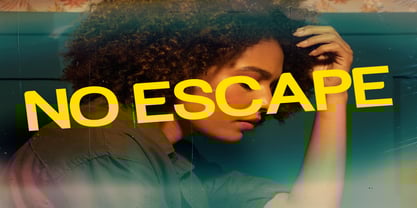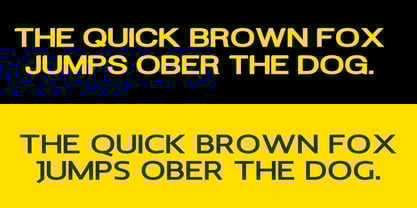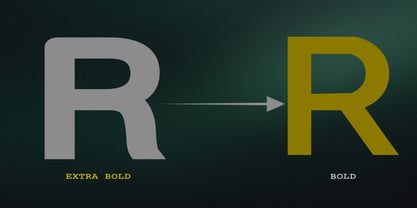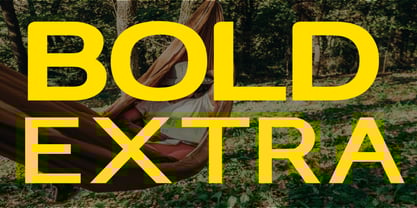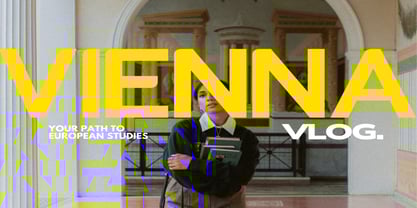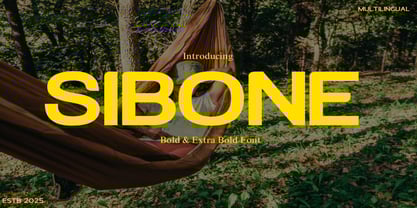
Sibone
by Dream Font
The Sibone Font Family was designed by Sue Zafarana and published by Dream Font. Sibone contains 2 styles and family package options. More about this family
Sibone is a contemporary sans-serif typeface designed for versatility and clarity. With its clean lines and balanced proportions, the Sibone font is perfect for branding, editorial design, packaging, and more. This typeface comes in two distinct weights—Bold and Extra Bold—allowing designers to create dynamic typography with ease. Whether you're crafting a bold headline or elegant body text, Sibone delivers a polished and professional look. The Sibone typeface is built for designers who appreciate simplicity with a touch of modern sophistication.